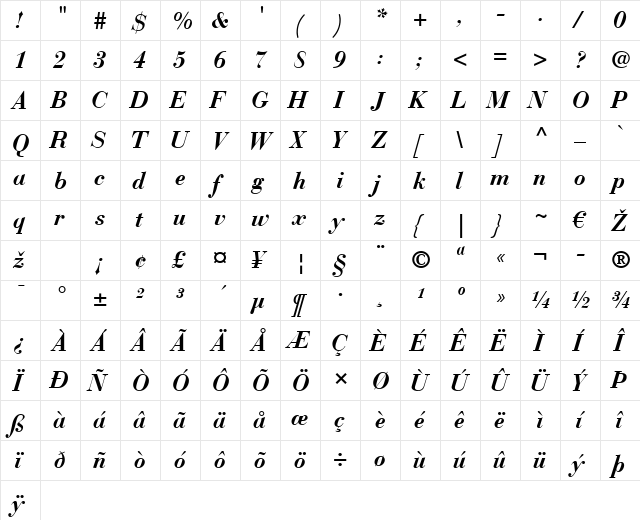
BauerBodoni LT Bold Italic
Design Context for BauerBodoni LT Typeface
BauerBodoni LT offers clean, dependable letterforms without strong stylistic allegiance, making it a practical choice for designers who need flexibility. Its italic angle brings a sense of urgency and motion to the letterforms. The heavy weight commands attention and anchors typographic hierarchies.
Pro Tip: Use BauerBodoni LT for emphasis, pull quotes, and subheadings where its slanted energy can add rhythm to the layout.